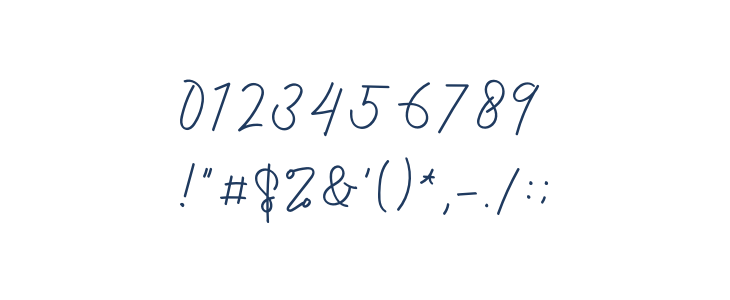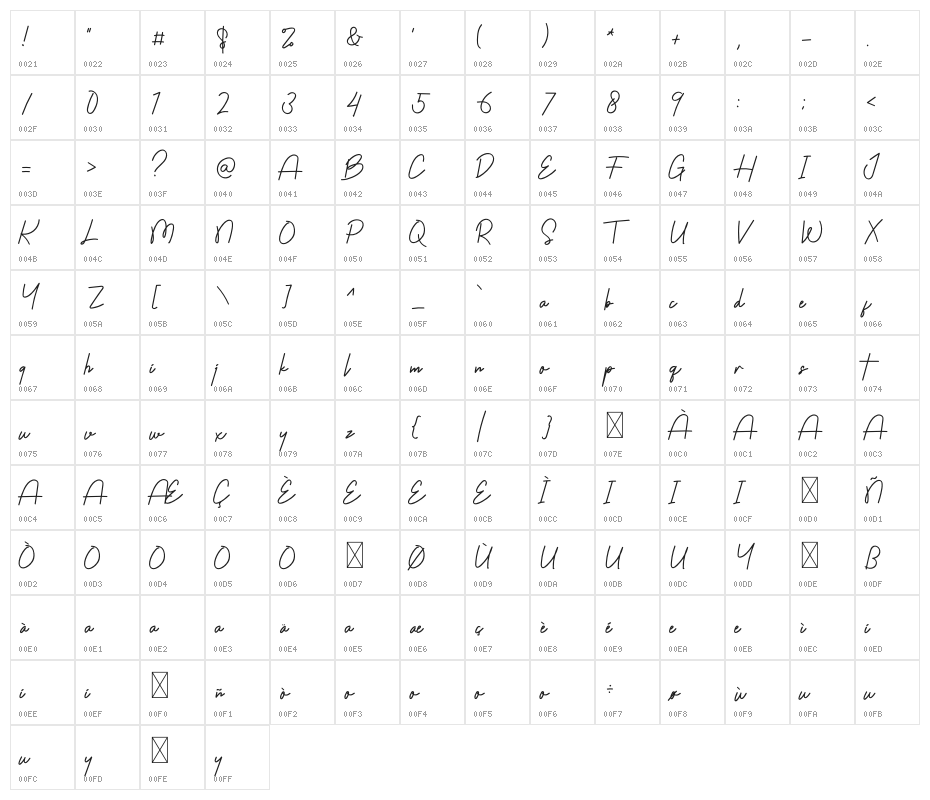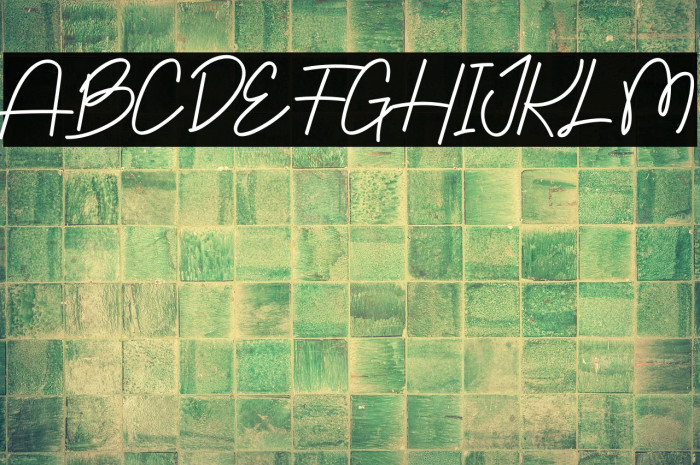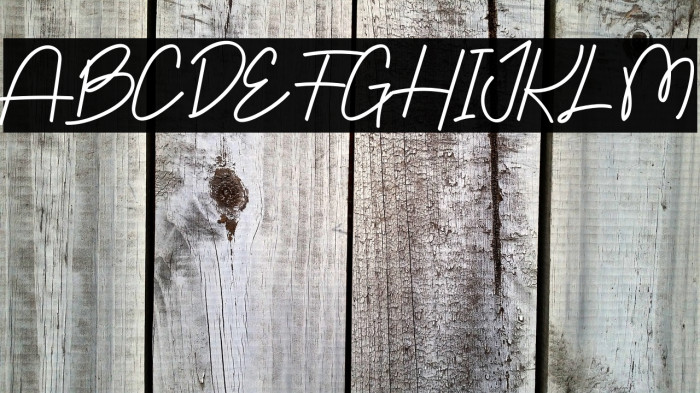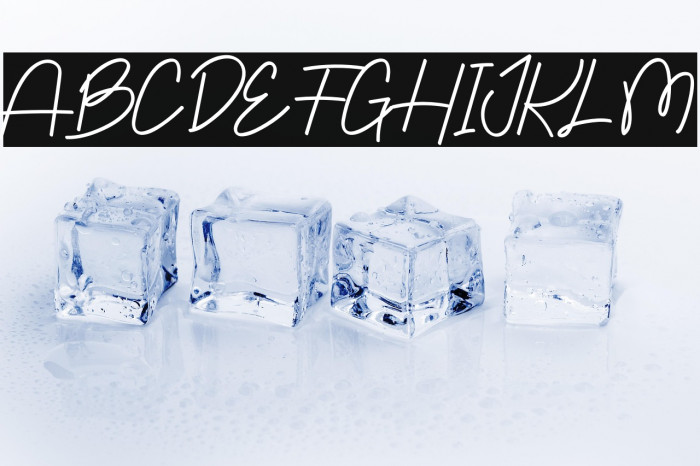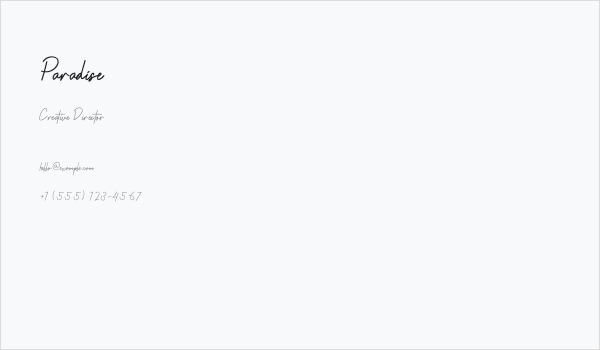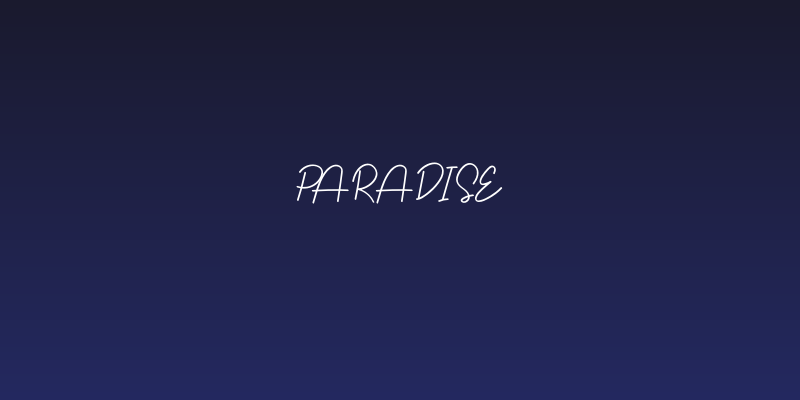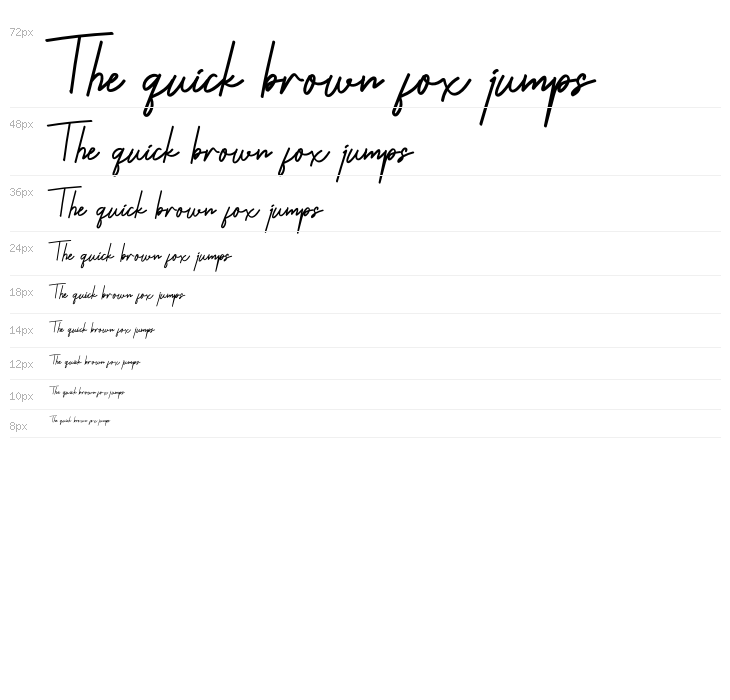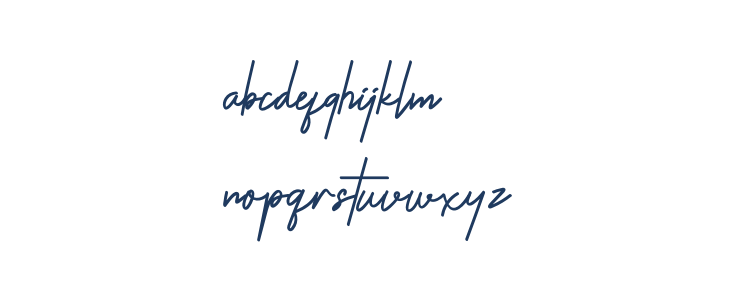
Paradise Font
| Stile generale | Elegant, Handwritten |
| Caso d'uso | Logos, Invitations, Personal Branding |
| Progetti proposti | Ideal for wedding invitations, greeting cards, personal branding, and artistic projects that require a personal, elegant touch. |